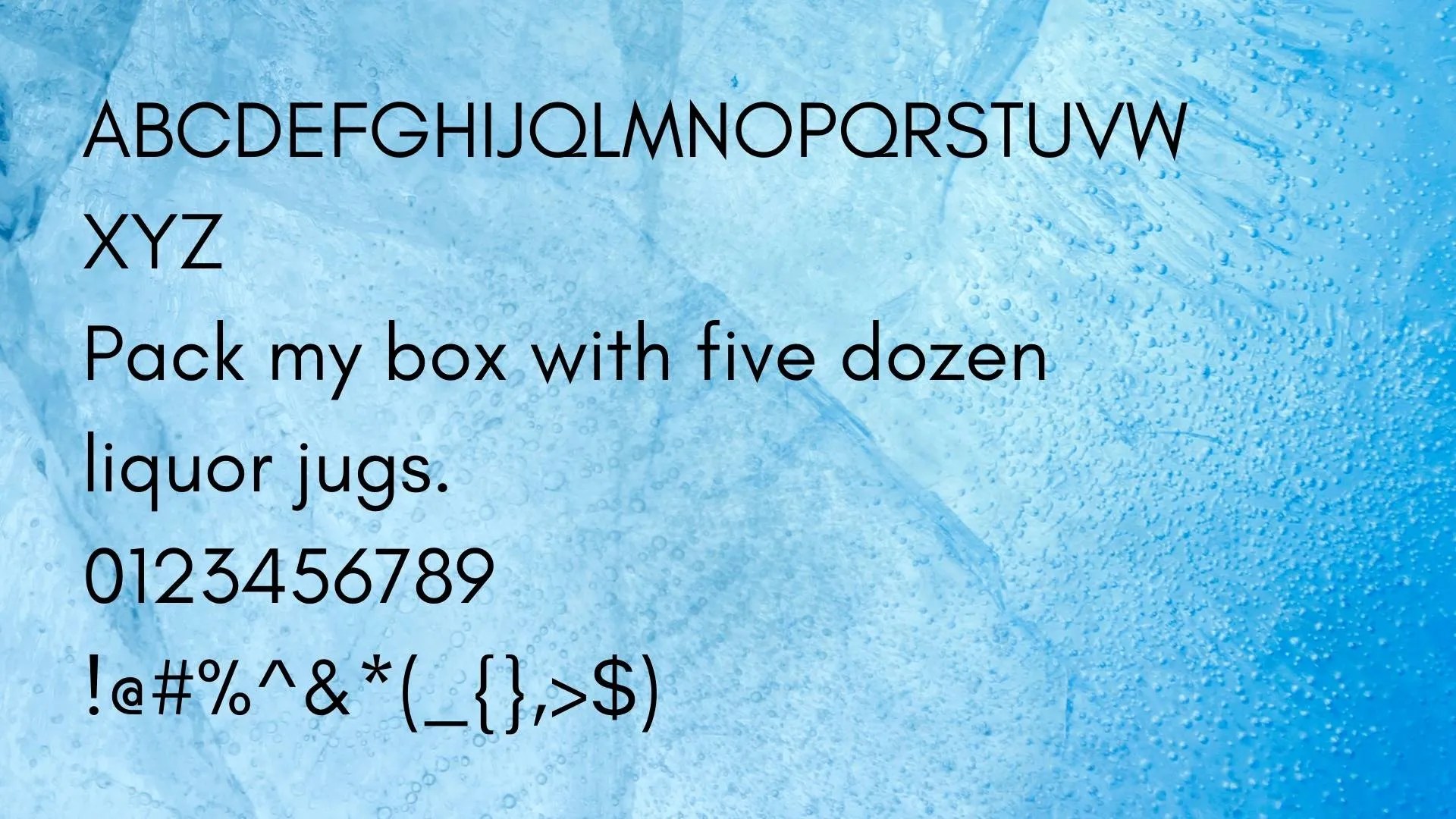
Glacial Indifference Font Similar In Word. All of these fonts, except glacial indifference, are available to download for. Web if you’re looking to establish a clean and minimalist brand identity, check out the below modern font pairings for inspiration.
Web glacial indifference is a free font for commercial use created by hanken design co. Web download and install the glacial indifference free font family by hanken design co. All of these fonts, except glacial indifference, are available to download for. Web download glacial indifference font family · free for commercial use · glacial indifference is an open source typeface with inspirations from bauhaus geometric fonts. Glacial indifference is a sans serif type font that can be used on any device such as pc, mac, linux, ios and android. 100 free fonts alternatives to glacialindifference italic 1. Brixton book oblique download free > personal use brixton book oblique font 2. Web what fonts are similar to glacialindifference italic? Free fonts for commercial use hot Web if you’re looking to establish a clean and minimalist brand identity, check out the below modern font pairings for inspiration.